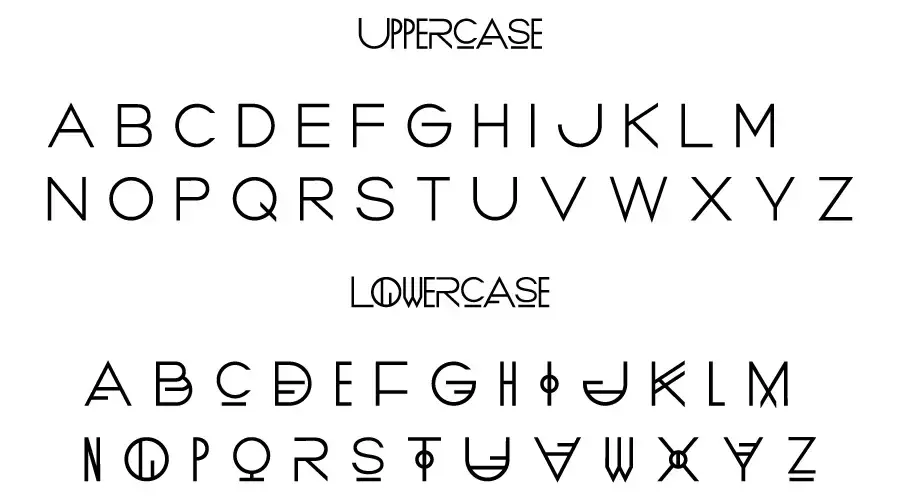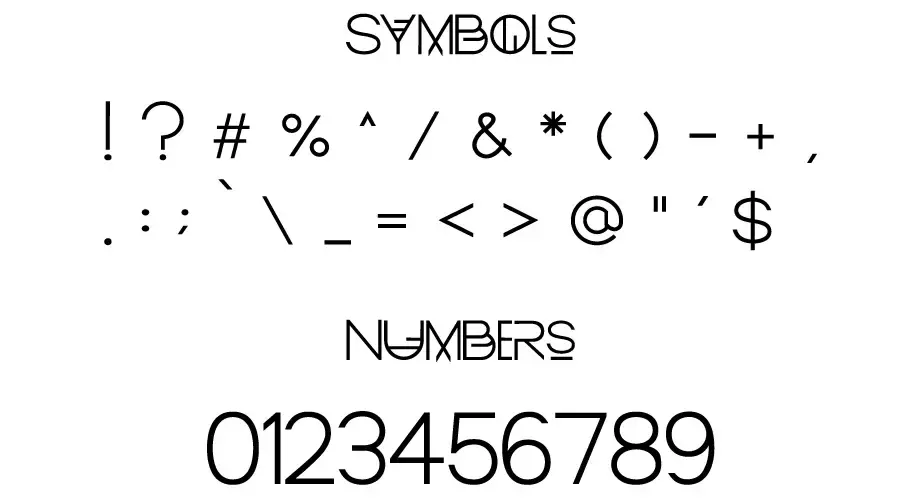
Bordeaux Font
The Bordeaux Font is a handcrafted display typeface with a distinctive design and hybrid lettering styles. The uppercase of this all caps typeface is absolutely plain and minimal. However, the lowercase is defined by unique alternatives with special designs. Regular is the subfamily. Bordeaux is only available for personal use. Each weight contains increased language support, including Western European and Central European sets, and is handcrafted and developed with powerful OpenType features in mind.
This Font is ideal for anything that needs to stand out from the crowd, whether it’s Ultra Modern Branding, Techno or Cosmic Themed Designs, Haunted Movie Posters, Mysterious Arts, or even Minimal kinds of Stuff. Bordeaux is the ideal typeface for all of your creative projects. Bordeaux may be used to create unique designs, covers, shop and store names, and logos. Bordeaux is also ideal for branding projects, homeware designs, product packaging, and as a classy text overlay on any background image.
| Classification | Display |